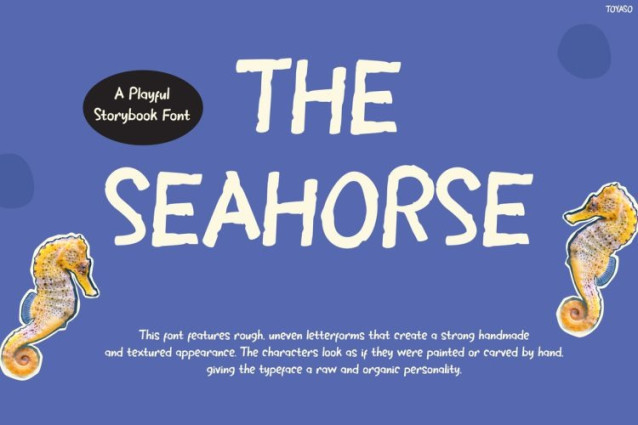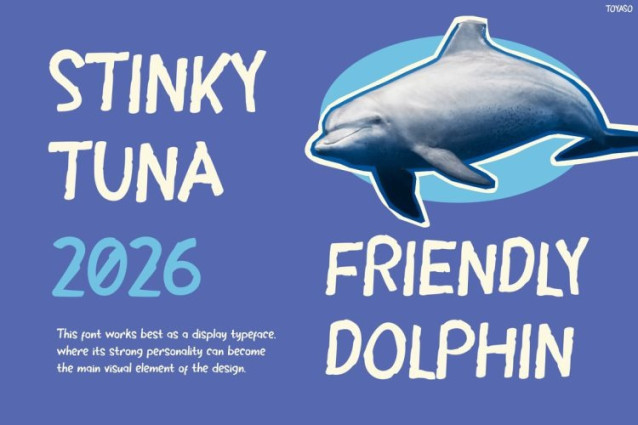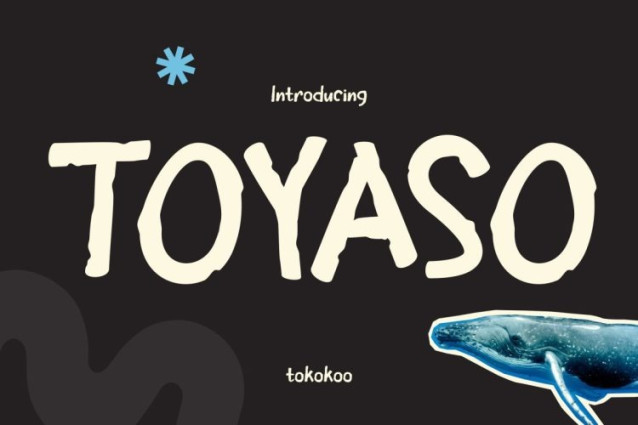
Toyaso Font
Toyaso Font is a playful and organic display typeface inspired by ocean adventures and children’s storytelling. Its soft, hand-drawn shapes and slightly textured strokes create a natural and friendly appearance. Because of its imperfect curves, the font feels warm, expressive, and full of personality. As a result, every word looks lively while remaining easy to read. Moreover, the ocean-inspired aesthetic enhances themes like sea life, underwater exploration, and imaginative storytelling. This makes the font visually engaging and emotionally appealing for young audiences while adding a unique artistic touch to every design.
Toyaso blends a casual handwritten style with smooth, rounded edges to ensure clarity and charm. Each character flows naturally, creating a balanced and consistent visual rhythm. Therefore, the font feels both playful and readable in various layouts.
In addition, it performs exceptionally well in projects that require a fun and adventurous tone. For example, it is ideal for children’s books, educational materials, posters, and branding. Furthermore, its soft and friendly style works perfectly for storytelling visuals, themed graphics, and social media content. Because of its flexibility, Toyaso adapts well to both print and digital designs. It also pairs beautifully with illustrations, making it a strong choice for visually rich compositions.